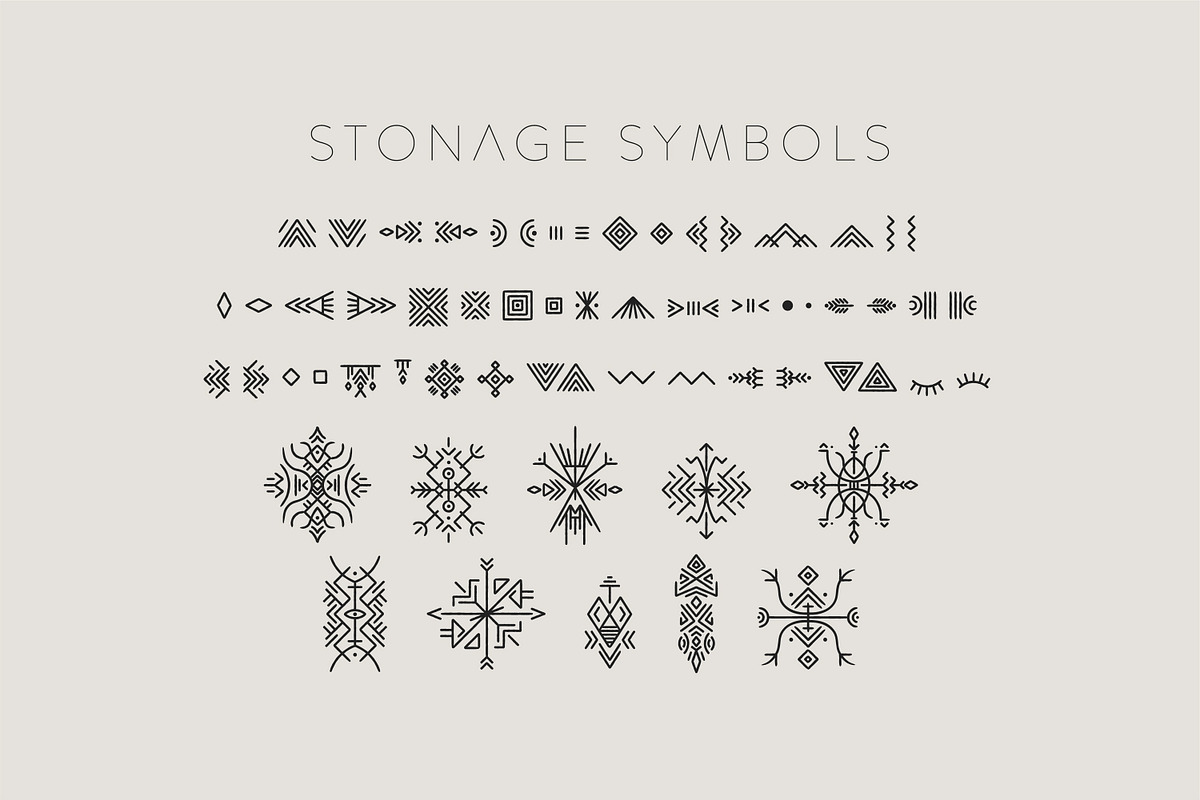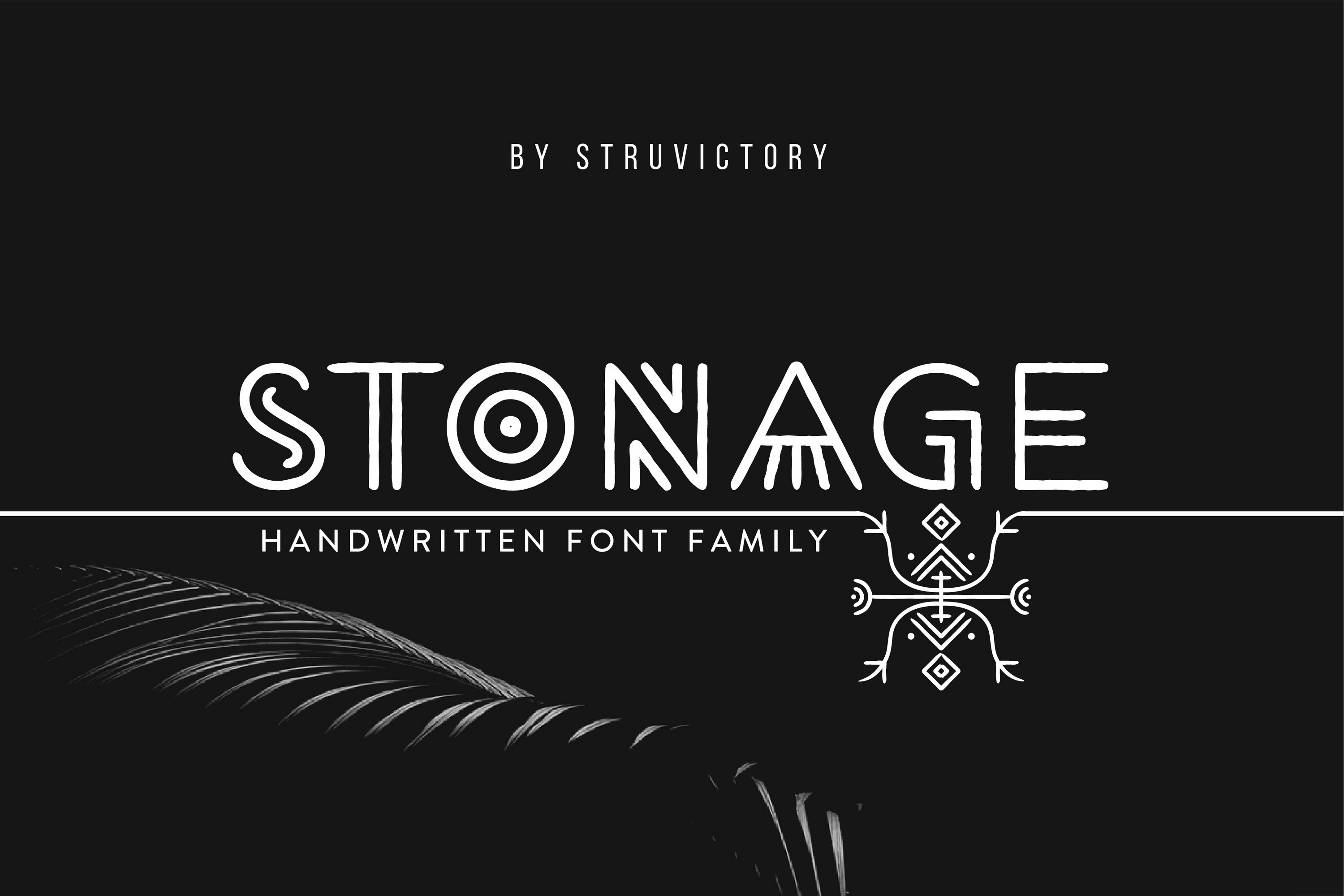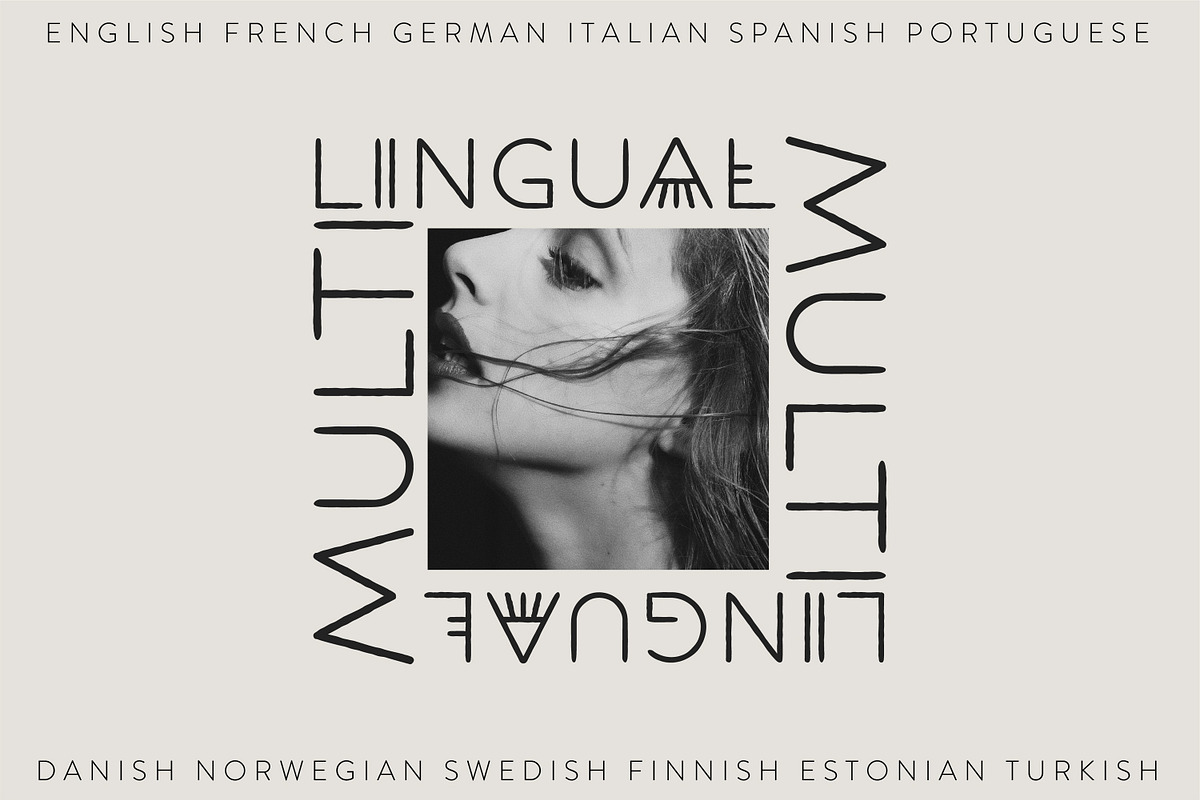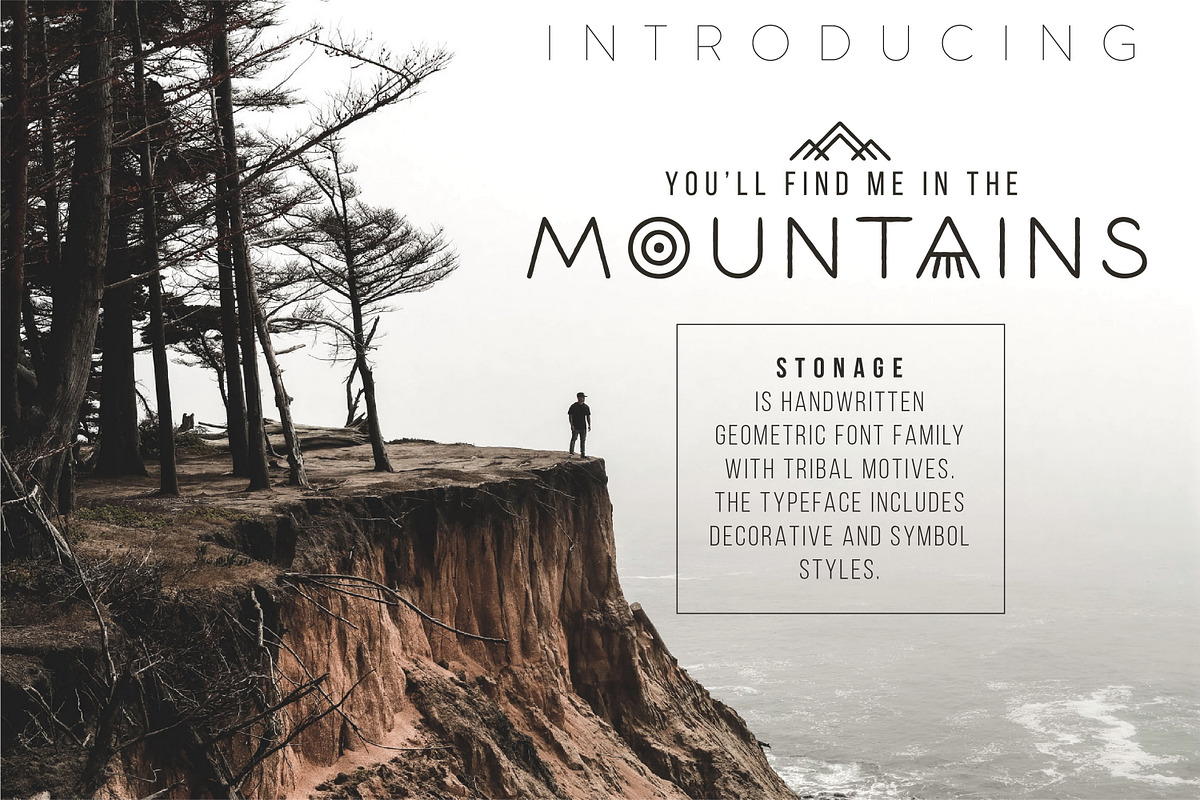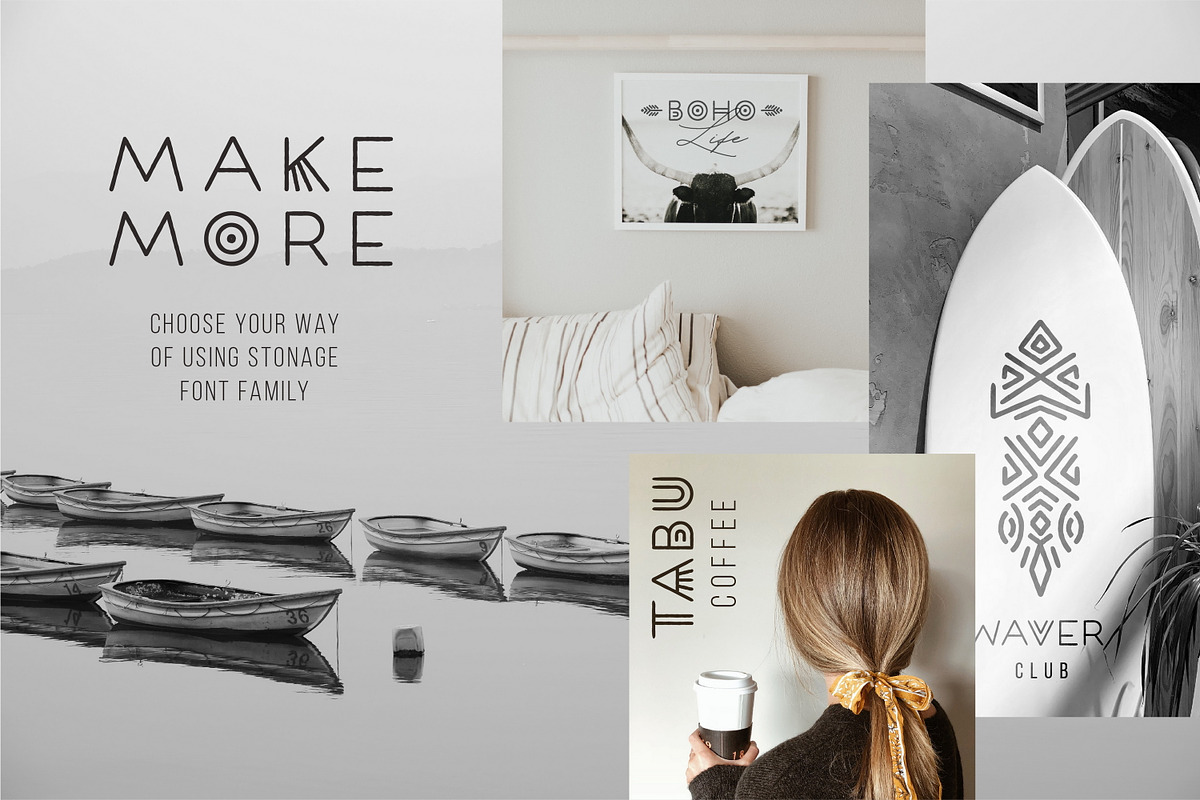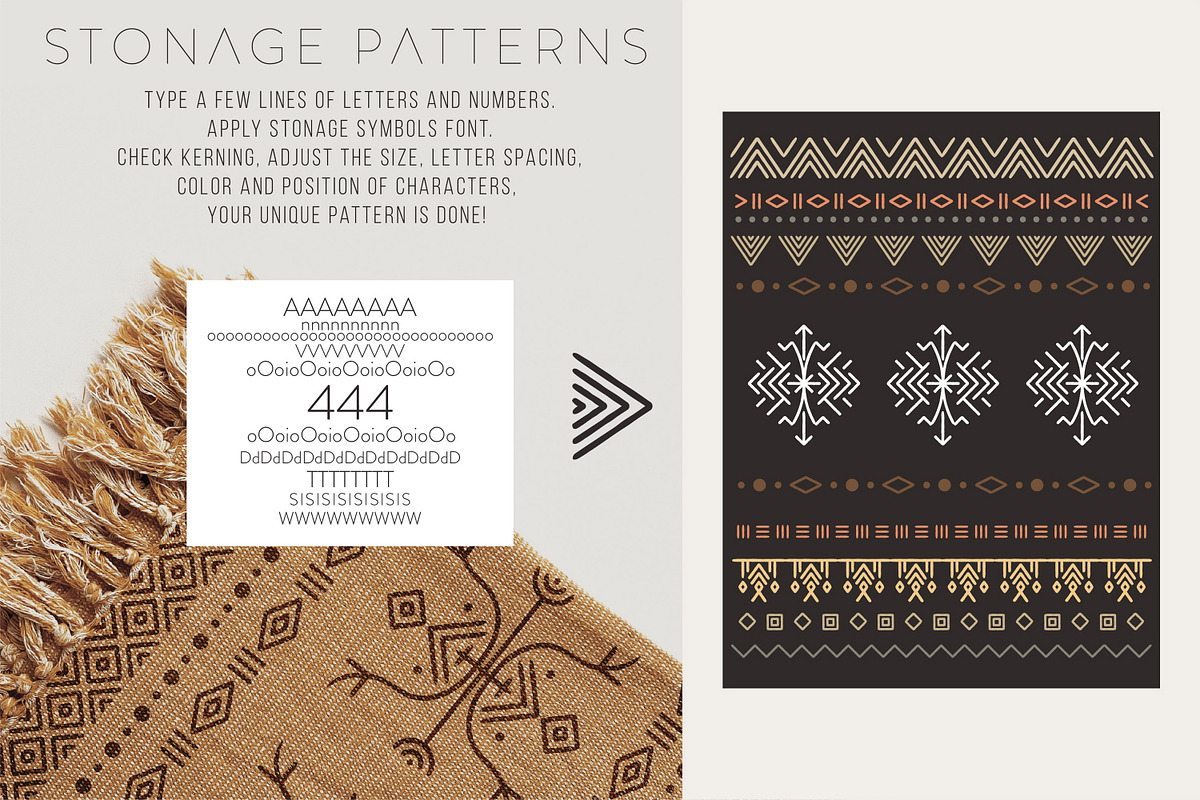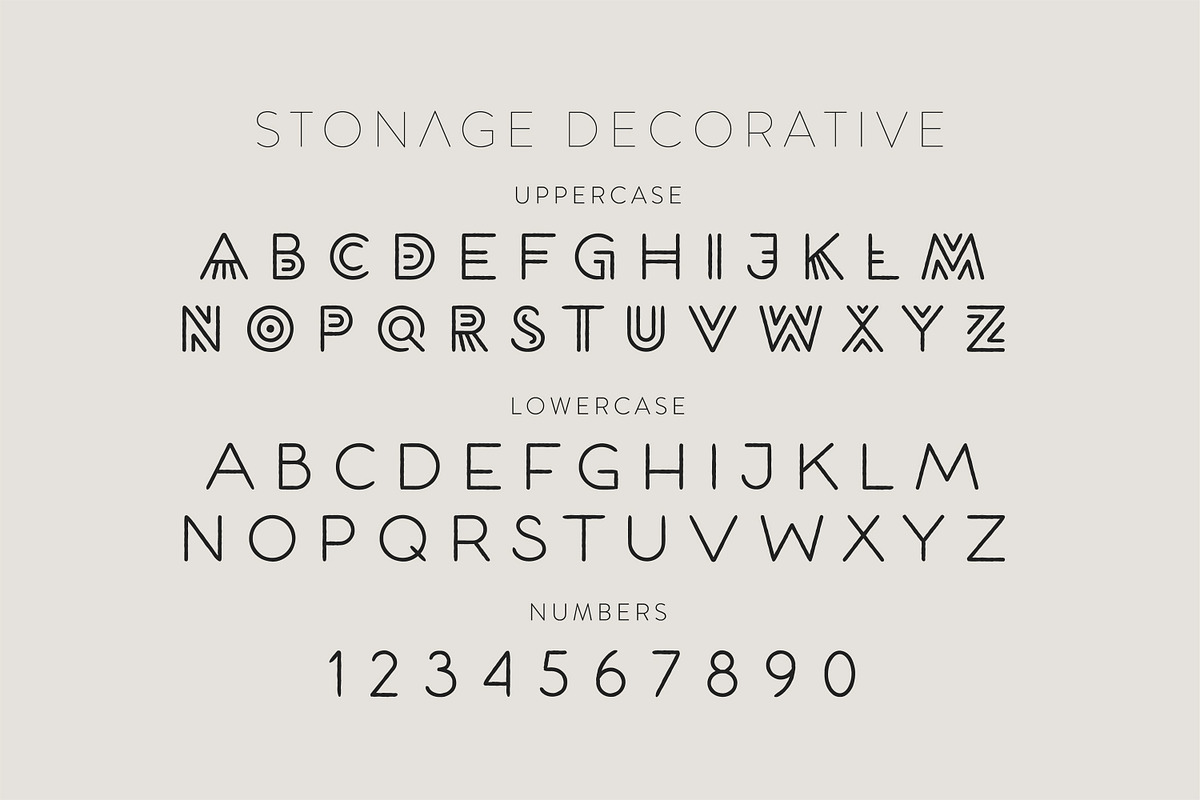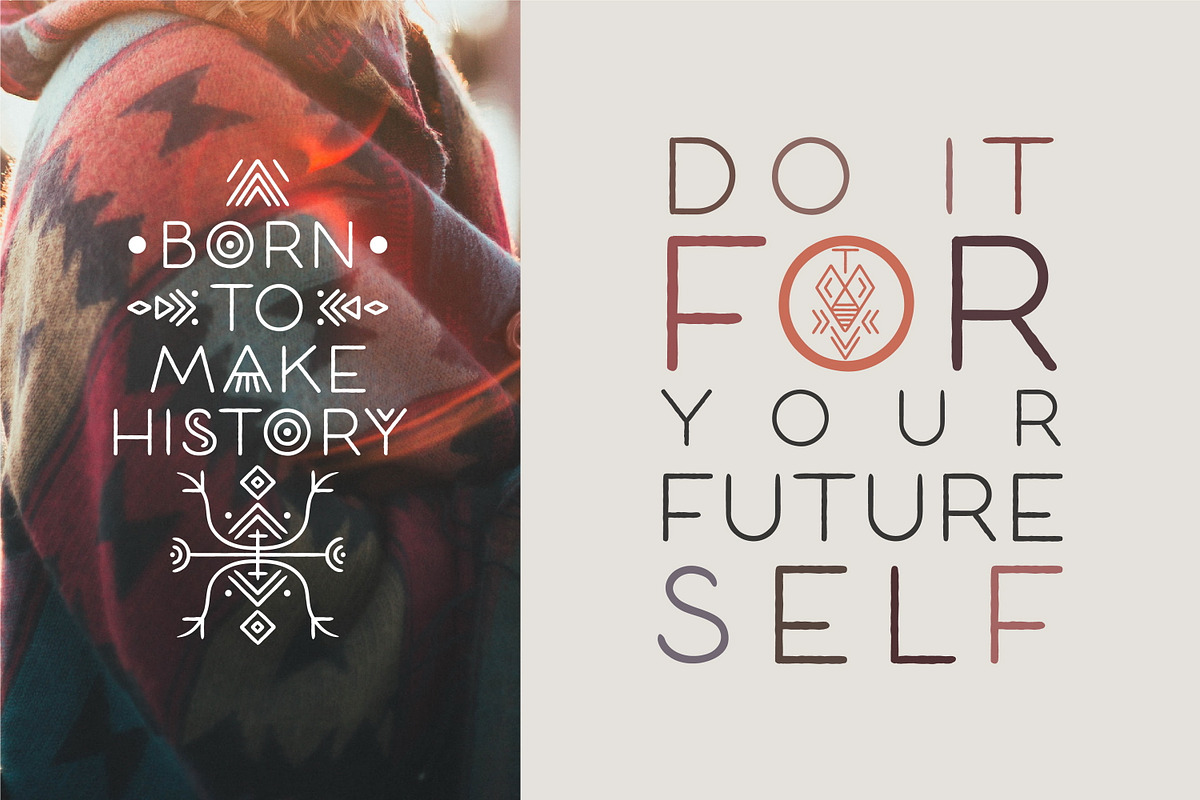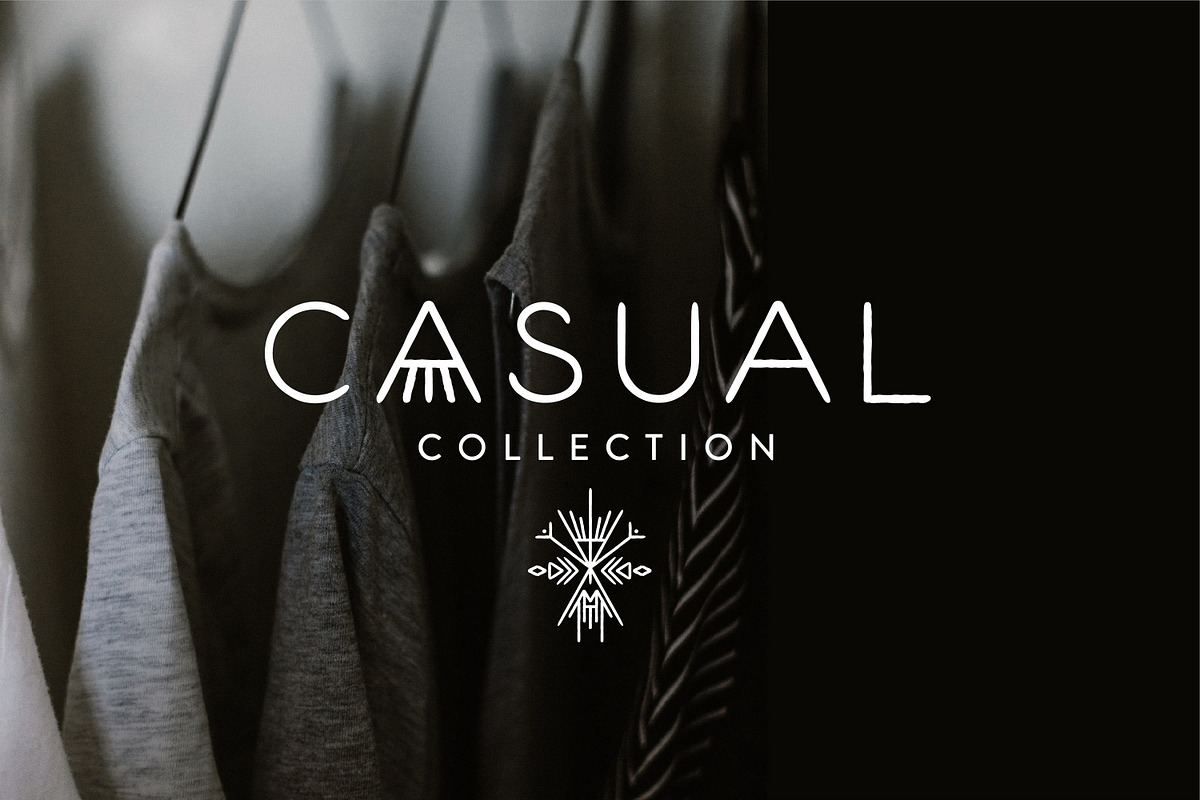
Stonage - Handwritten Font Family
Stonage is a minimalistic handwritten thin font inspired by tribal aesthetics and decorated with geometric patterns. The typeface includes Decorative and Symbol styles. Stonage Decorative is represented by thin line lowercase and ornate uppercase. Use Stonage Symbols to create unique patterns in tribal style.
Stonage font family is suitable for craft products branding and packaging (needlework, minimal clothing, organic food), tourism products, surface design, music albums, typographic posters ect. Use individual letters and symbols to create logos and monograms.
The font has extensive language support, it includes English, French, German, Italian, Spanish, Portuguese, Danish, Norwegian, Swedish, Finnish, Estonian, Turkish. Need to know if your language is supported? Type any words in the text box below and see if all characters you need are there.